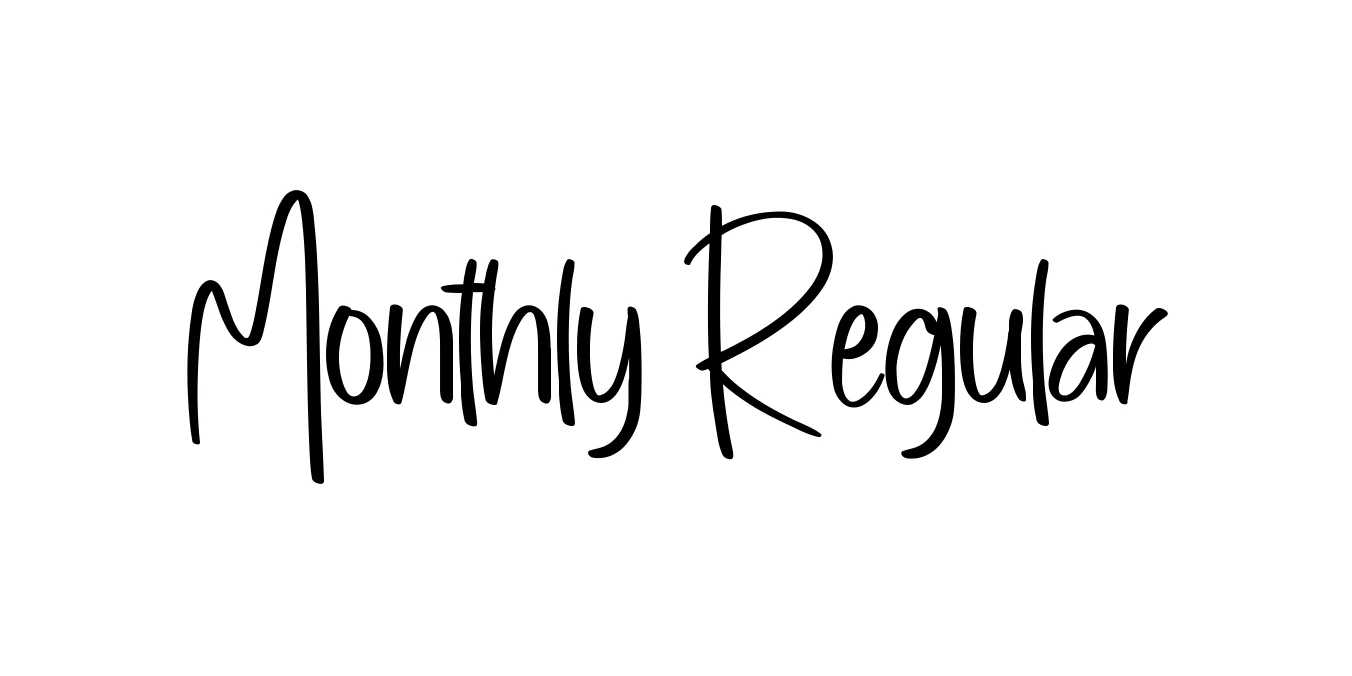
Monthly Regular
Monthly Regular is a contemporary script typeface that embodies the fluidity and grace of natural handwriting. Developed with a focus on organic movement, this font bridges the gap between casual calligraphy and modern digital design, providing a high level of legibility while maintaining a distinctly personal feel. Its clean curves and balanced character weight make it a versatile tool for designers aiming to evoke warmth and authenticity.
Since its release, Monthly Regular has become a popular choice for lifestyle branding and social media storytelling. It is particularly effective in settings where a human touch is required, such as personalized invitations or boutique identity systems. The font's simplistic yet elegant structure ensures it remains professional across both high-resolution print and mobile screens.
Monthly Regular Best Uses
Perfect for creating engaging Instagram stories, Pinterest pins, and aesthetic lifestyle posts.
Ideal for boutique logos, personal signatures, and creative identity projects.
Well-suited for wedding stationery, greeting cards, and formal event announcements.